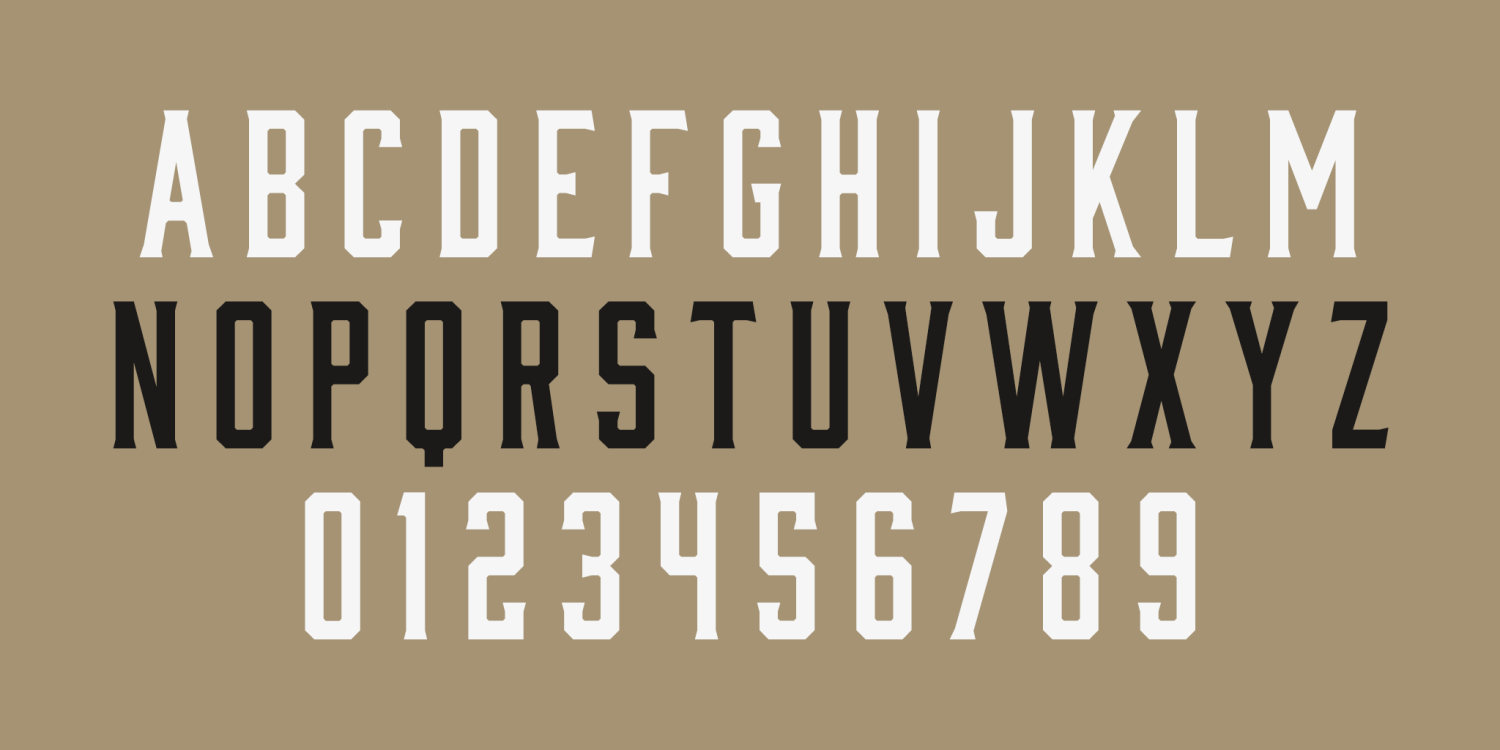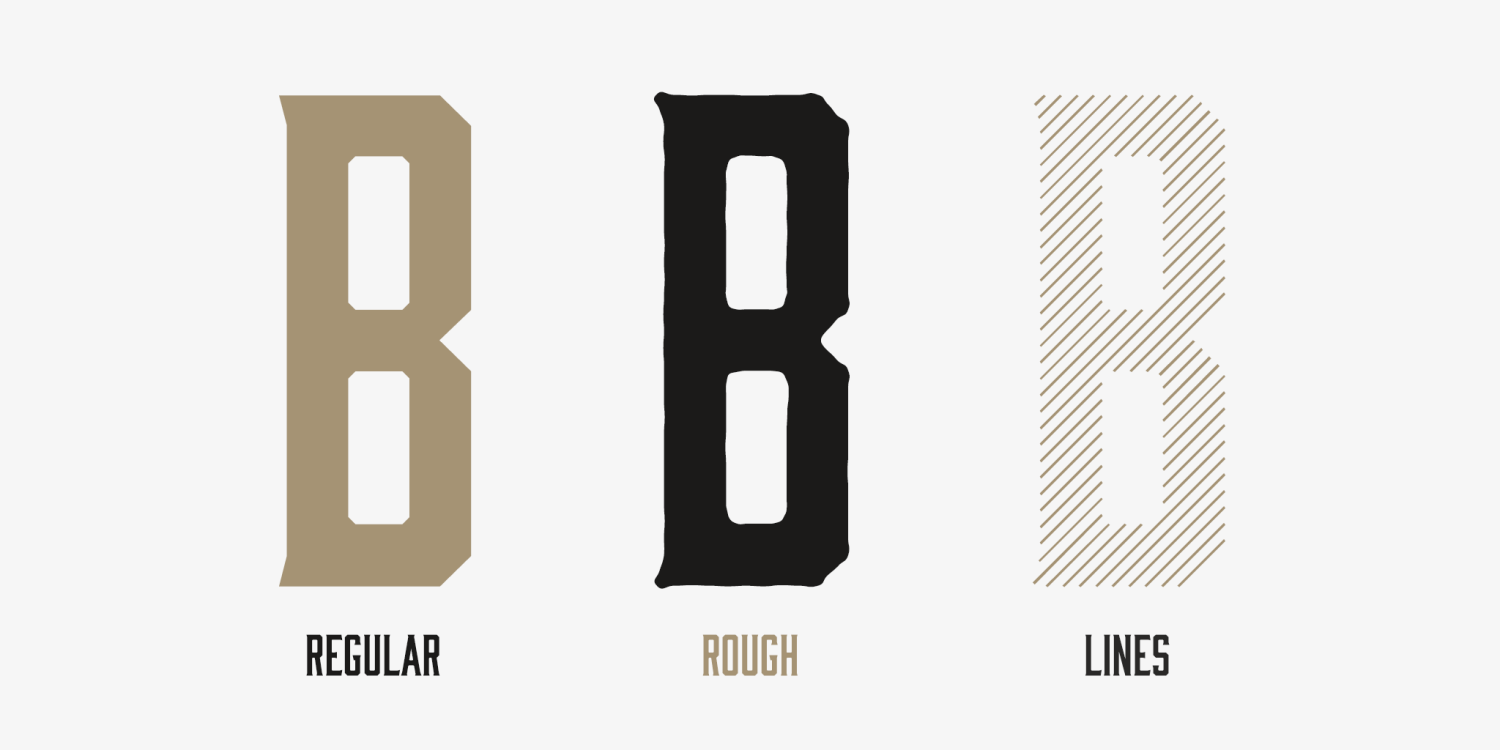
About Bourbon
Like a brother to Gin, Bourbon is a condensed display typeface inspired by the likes of whiskey bottles and vintage serifs. It enjoys long walks with subtle, distressed textures or a nice, good-ole script. One night, the ?Regular? style decided to get…